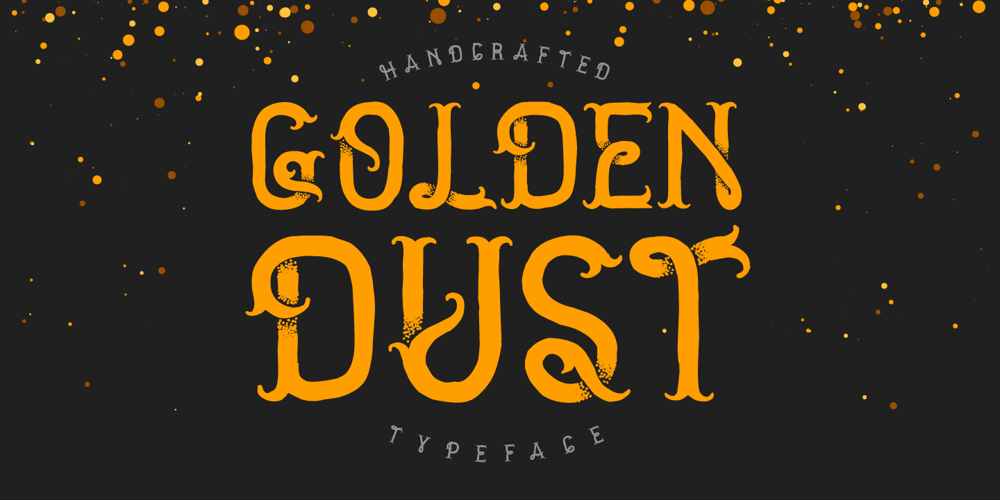
Golden Dust Font Family was designed by Gleb Guralnyk and published by Gleb Guralnyk. Golden Dust contains 1 styles and family package options. Introducing a “Golden dust” font. Fully handcrafted with vintage points effect. Hundreds of dots brings a lot of fun ๐ I hope you’ll enjoy it!